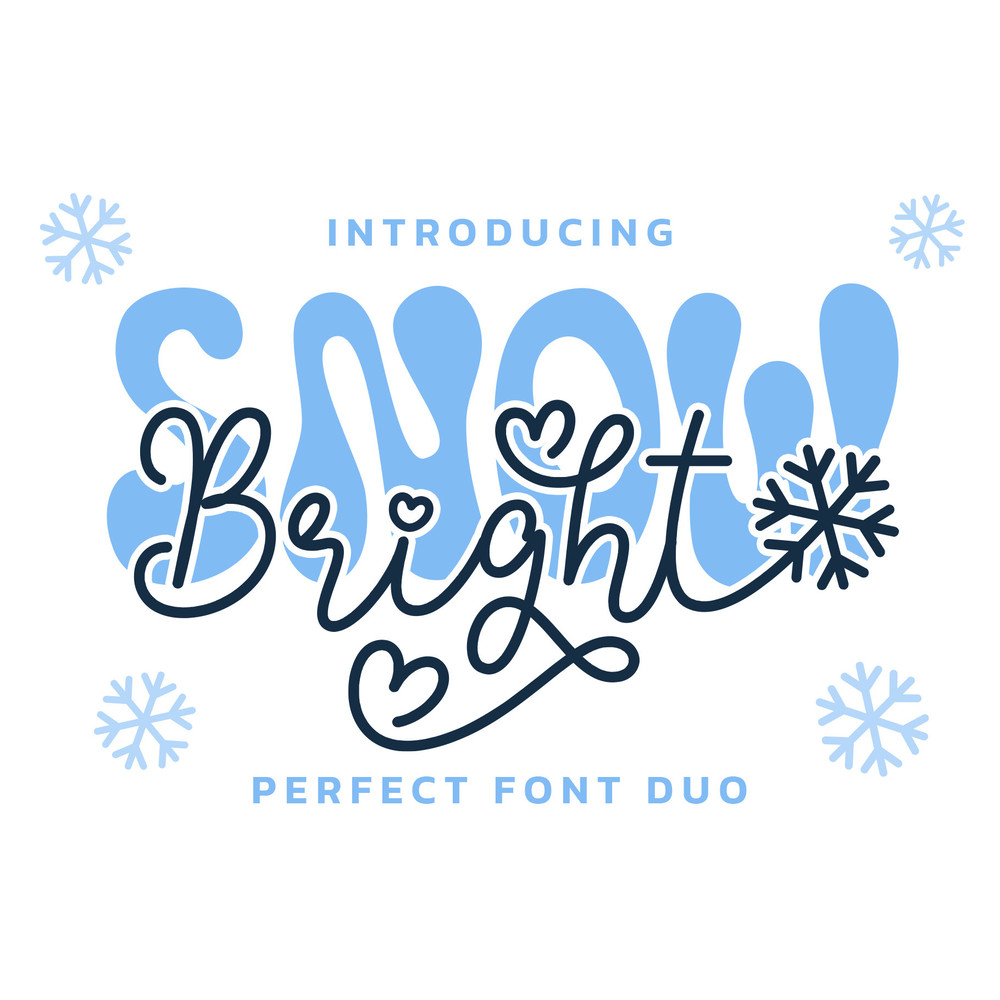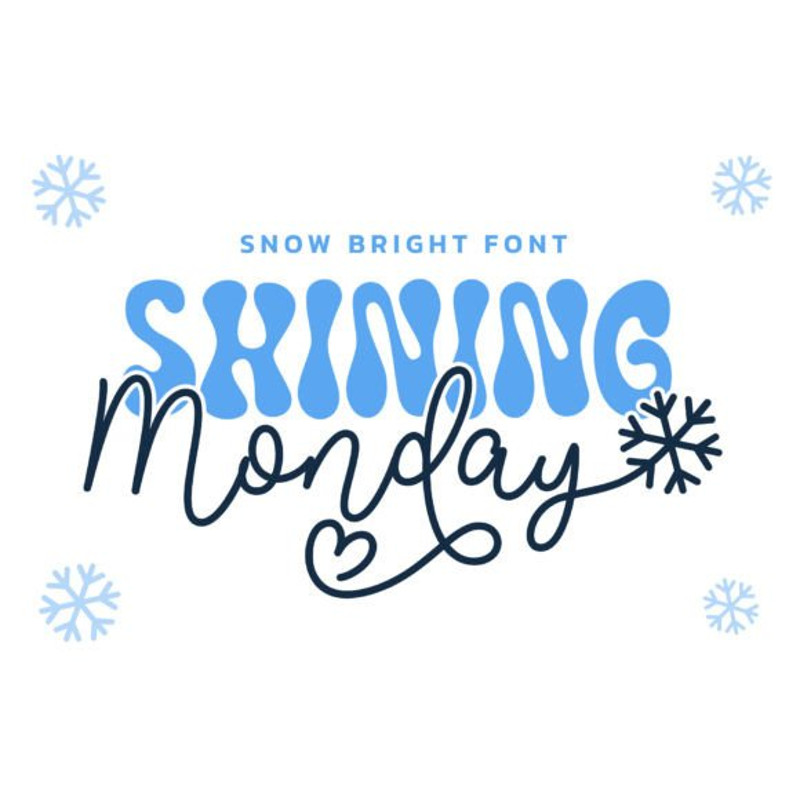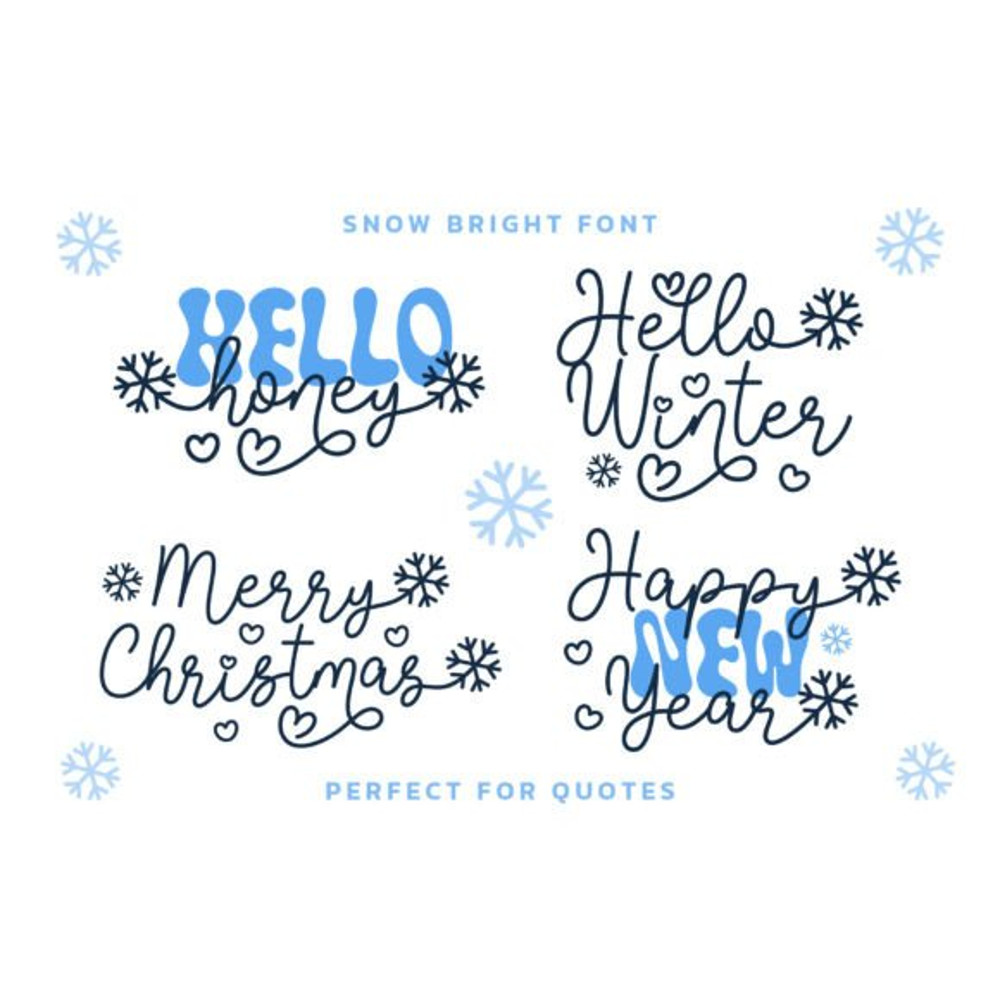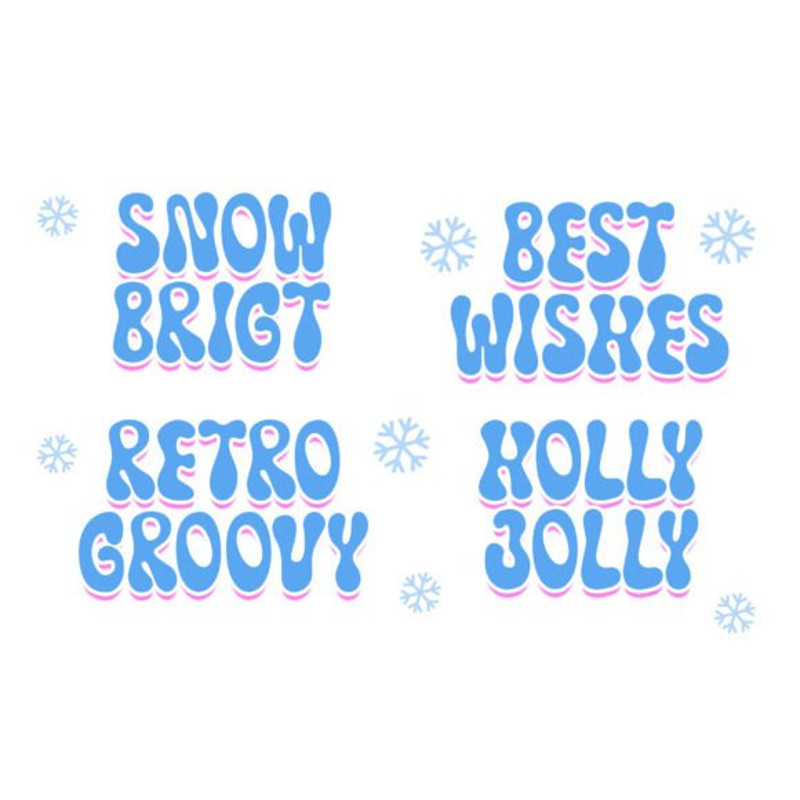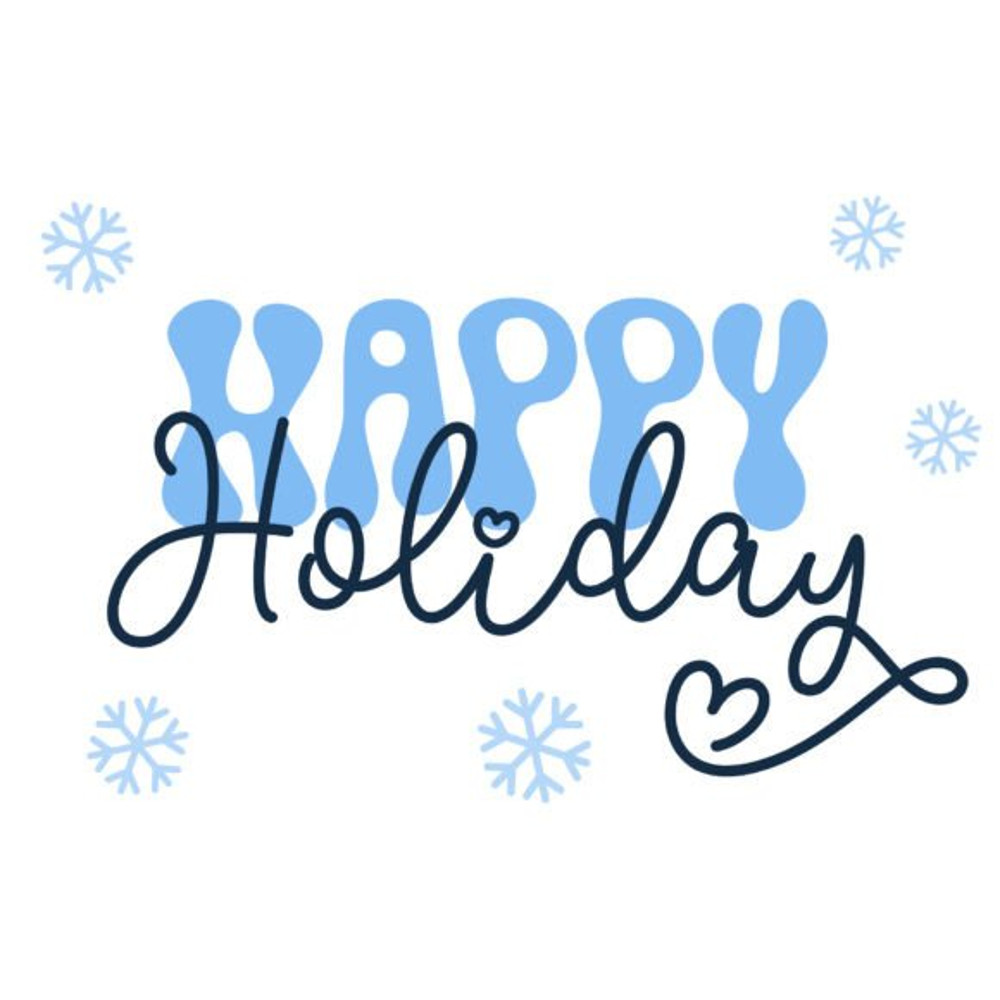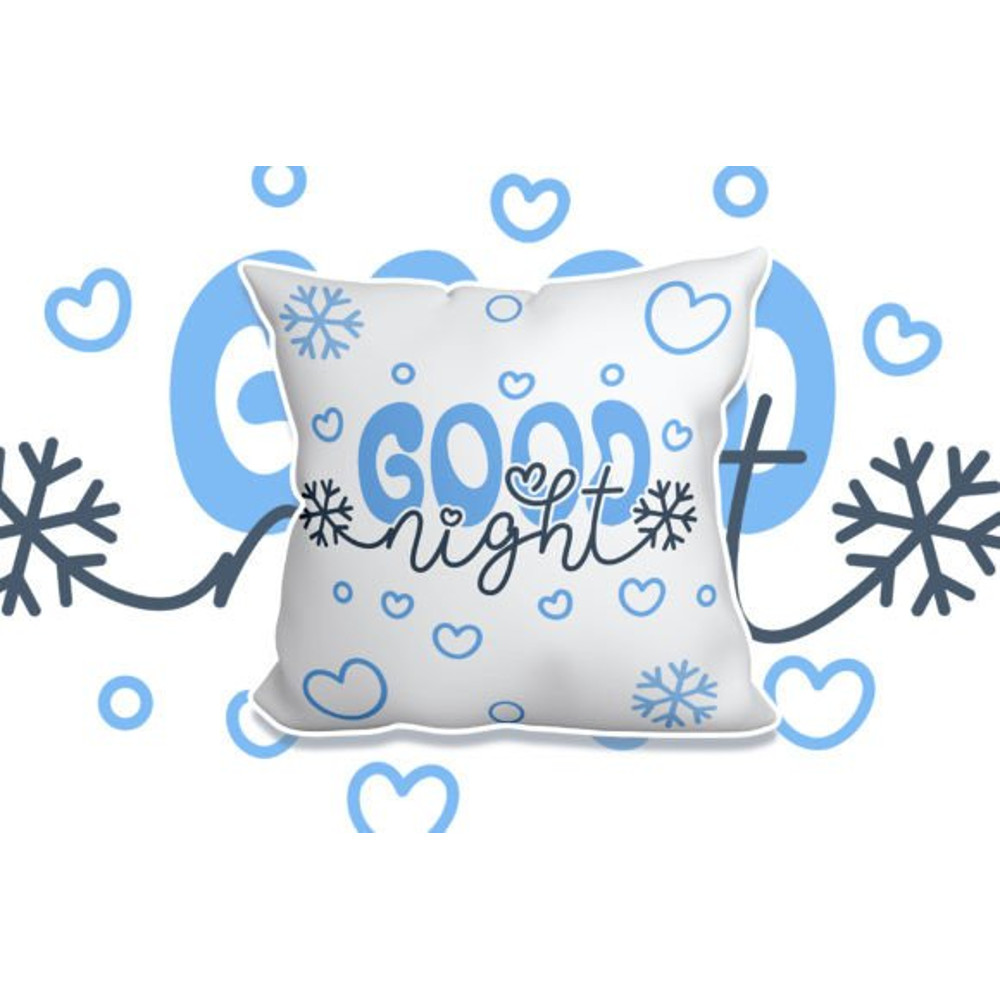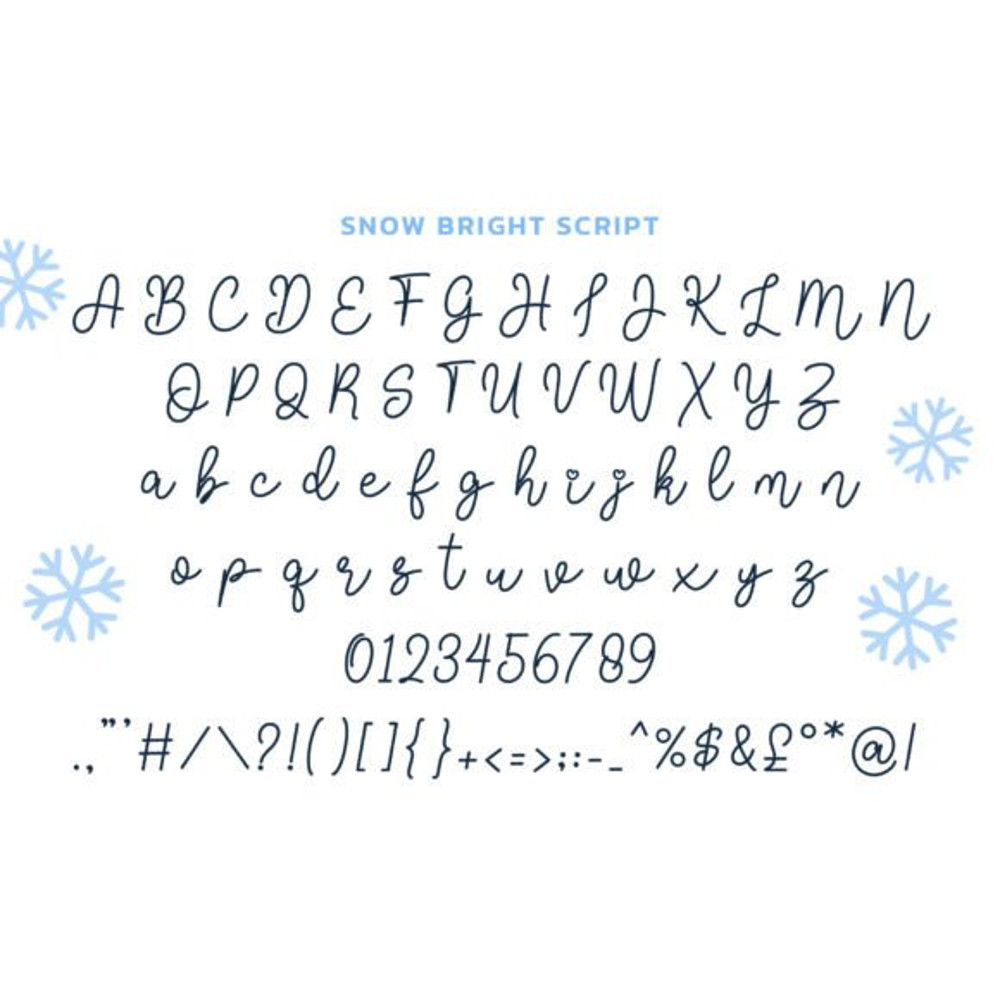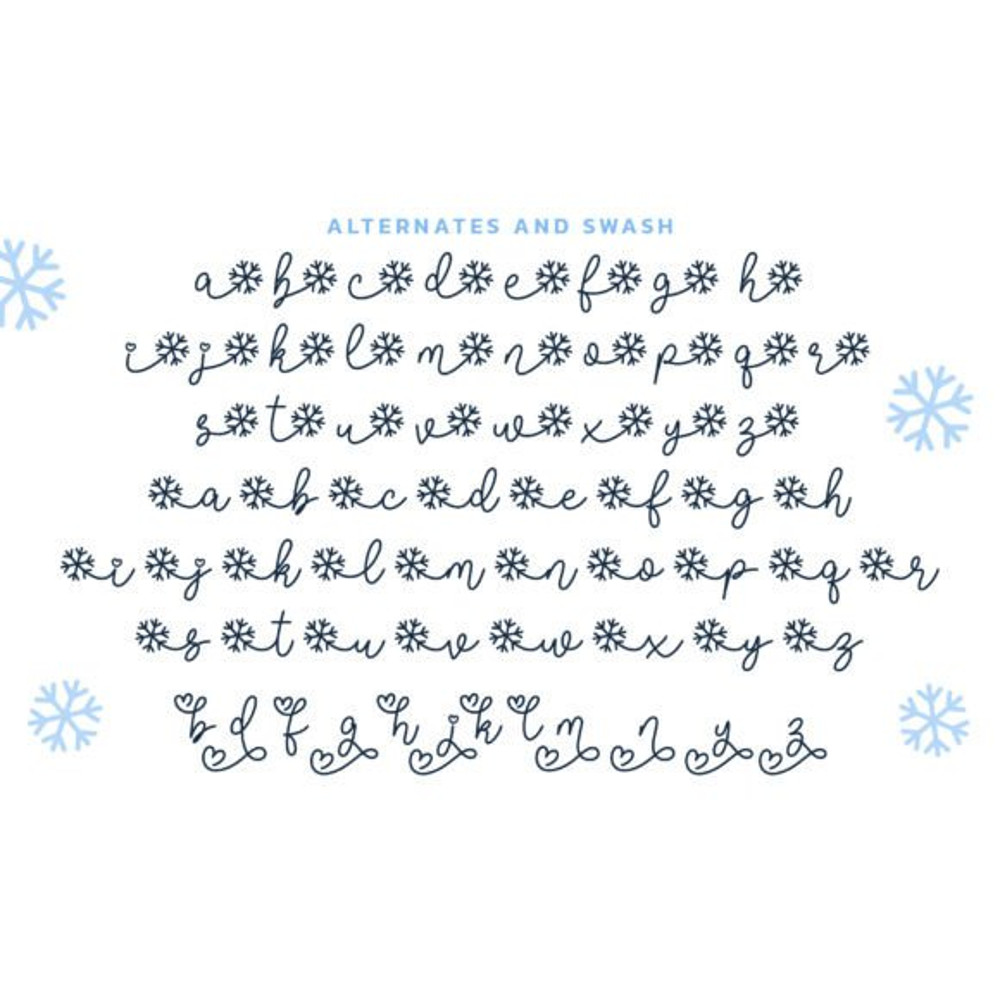
Snow Bright is a fun and playful font duo (script and retro display). This font is inspired by beautiful snow which makes it suitable for adorable and kids’-related products. This font is PUA encoded which means you can access all of the glyphs and swashes with ease!